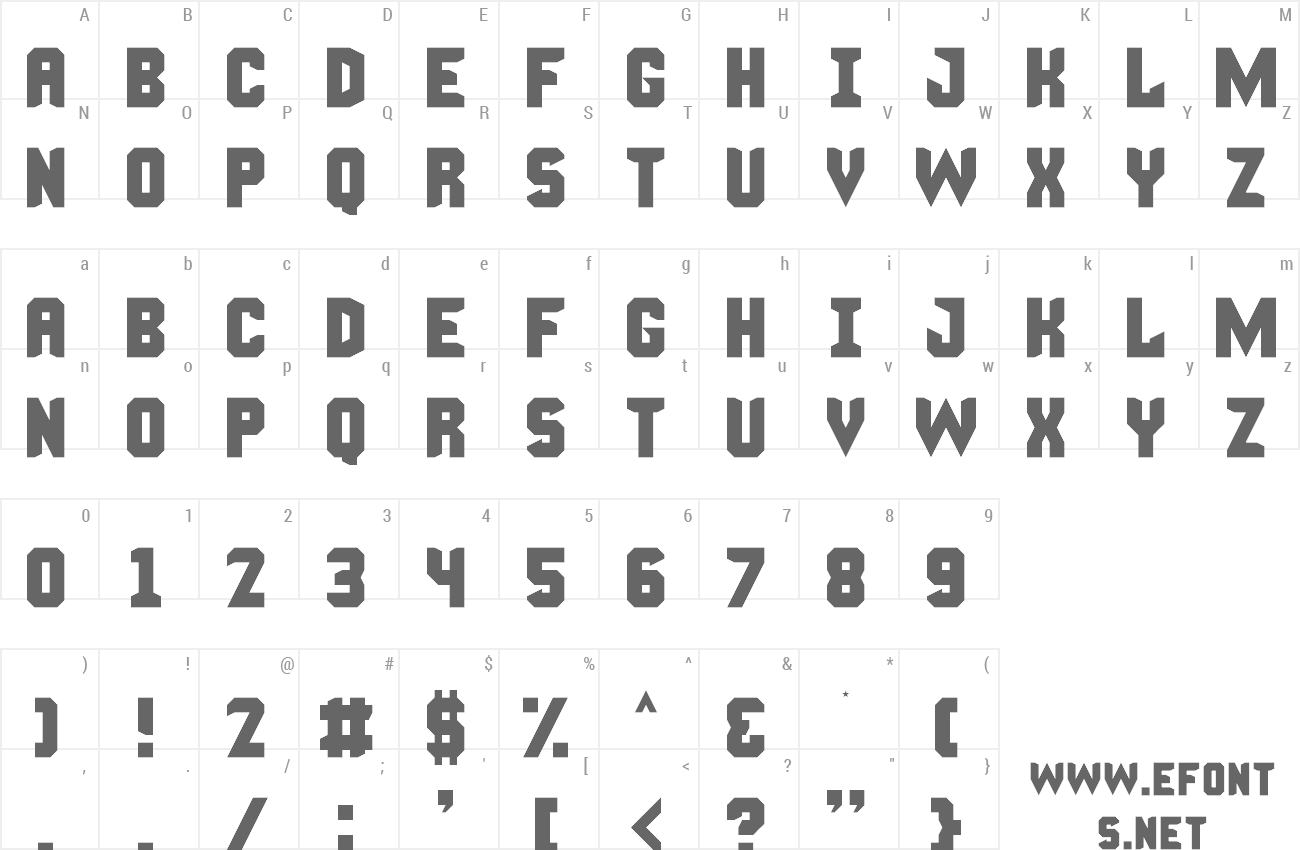
Preview and download Manly Man Font. Created by NALGames in Fancy Various styles with 100% Free license.
Big, bold and manly. All use allowed, commercial or otherwise. Credit is required. Letting me know (nal[at]nalgames[dot]com) if and where you've used the font is not necessary, but if you're feeling courteous please do. I'm always interested to see where it crops it, and will not forbid or limit any use in response. You can do what you like with it! |